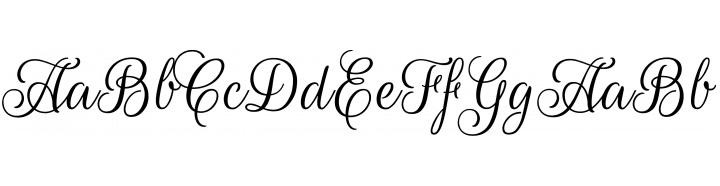
13+ Script Font Free Downloads Best Fonts. Download and install free script fonts of the best quality from free fonts and use on your own personal and business related design purposes. Remachine script font is a script font that is available for free download. Looking for free script fonts? They are organized into highly regular formal types similar to cursive writing and looser, more casual scripts. Browse a unique collection of the best script fonts and thousands of free typefaces to download. Font name newest most downloads. Script typefaces are based upon the varied and often fluid stroke created by handwriting, pretty much like the cursive fonts just typically more elegant. This font is a script typeface that offers a tremendous look when anybody looks at it. Demo donationware free free for personal use public domain, gpl, ofl shareware. Some scripts are more formal like elegant calligraphy, while others are casual like cursive handwriting. Archive of freely downloadable fonts. Download free script fonts for commercial and personal use. Browse by alphabetical listing, by style, by author or by popularity. Script font is a broad style that refers to any typeface that looks like it was drawn by hand. This font that comes together with elegant texture.
Search results for 'script' (free script fonts). As the designs of script fonts are based on the fluidity of real handwriting, they can add a personal touch to pretty much any design, especially one that involves typography. Stylish hand lettering bold scripts, brush fonts and script fonts are available for free download. Highest quality script font for personal and commercial use. All cyrillic fonts by russian, serbian, north macedonian, ukrainian designers 1001fonts: Fonts that support the cyrillic language fontspring: Browse by alphabetical listing, by style, by author or by popularity.
Free Script Fonts Download Free Fonts. Looking for free script fonts? Browse by alphabetical listing, by style, by author or by popularity. Demo donationware free free for personal use public domain, gpl, ofl shareware. Script typefaces are based upon the varied and often fluid stroke created by handwriting, pretty much like the cursive fonts just typically more elegant. This font that comes together with elegant texture. Download and install free script fonts of the best quality from free fonts and use on your own personal and business related design purposes. They are organized into highly regular formal types similar to cursive writing and looser, more casual scripts. Font name newest most downloads. Browse a unique collection of the best script fonts and thousands of free typefaces to download. Script font is a broad style that refers to any typeface that looks like it was drawn by hand. Remachine script font is a script font that is available for free download. Archive of freely downloadable fonts. Download free script fonts for commercial and personal use. Some scripts are more formal like elegant calligraphy, while others are casual like cursive handwriting. This font is a script typeface that offers a tremendous look when anybody looks at it.
Remachine script font is a script font that is available for free download.
5 Fabulous Free Script Fonts Free Download. Script typefaces are based upon the varied and often fluid stroke created by handwriting, pretty much like the cursive fonts just typically more elegant. Some scripts are more formal like elegant calligraphy, while others are casual like cursive handwriting. This font that comes together with elegant texture. Script font is a broad style that refers to any typeface that looks like it was drawn by hand. Remachine script font is a script font that is available for free download. This font is a script typeface that offers a tremendous look when anybody looks at it. Font name newest most downloads. Browse by alphabetical listing, by style, by author or by popularity. Download free script fonts for commercial and personal use. Download and install free script fonts of the best quality from free fonts and use on your own personal and business related design purposes. Demo donationware free free for personal use public domain, gpl, ofl shareware. They are organized into highly regular formal types similar to cursive writing and looser, more casual scripts. Browse a unique collection of the best script fonts and thousands of free typefaces to download. Archive of freely downloadable fonts. Looking for free script fonts?
Download free script fonts for commercial and personal use.
Script Free Design Resources. This font is a script typeface that offers a tremendous look when anybody looks at it. Demo donationware free free for personal use public domain, gpl, ofl shareware. Download free script fonts for commercial and personal use. Browse by alphabetical listing, by style, by author or by popularity. Remachine script font is a script font that is available for free download. Browse a unique collection of the best script fonts and thousands of free typefaces to download. Script font is a broad style that refers to any typeface that looks like it was drawn by hand. Font name newest most downloads. This font that comes together with elegant texture. Download and install free script fonts of the best quality from free fonts and use on your own personal and business related design purposes. Some scripts are more formal like elegant calligraphy, while others are casual like cursive handwriting. Script typefaces are based upon the varied and often fluid stroke created by handwriting, pretty much like the cursive fonts just typically more elegant. Archive of freely downloadable fonts. They are organized into highly regular formal types similar to cursive writing and looser, more casual scripts. Looking for free script fonts?
Below you can see preview most popular script fonts, also you can download any script font for free in truetype (.ttf) and opentype (.otf) format.
Frutilla Script Font Dafont Com. This font that comes together with elegant texture. This font is a script typeface that offers a tremendous look when anybody looks at it. Browse by alphabetical listing, by style, by author or by popularity. Font name newest most downloads. Some scripts are more formal like elegant calligraphy, while others are casual like cursive handwriting. Script typefaces are based upon the varied and often fluid stroke created by handwriting, pretty much like the cursive fonts just typically more elegant. Looking for free script fonts? Demo donationware free free for personal use public domain, gpl, ofl shareware. Download free script fonts for commercial and personal use. Download and install free script fonts of the best quality from free fonts and use on your own personal and business related design purposes. Archive of freely downloadable fonts. Script font is a broad style that refers to any typeface that looks like it was drawn by hand. Browse a unique collection of the best script fonts and thousands of free typefaces to download. They are organized into highly regular formal types similar to cursive writing and looser, more casual scripts. Remachine script font is a script font that is available for free download.
Font name newest most downloads. Take a look at beautiful free script fonts for professional design, based upon suggestions from designers all over the world. Big collection of free fonts for download. 25 downloads free for personal use. Stylish hand lettering bold scripts, brush fonts and script fonts are available for free download. Latin script (free fonts) latin script (handwritten fonts) turkish fonts at fontlibrary. Highest quality script font for personal and commercial use. Sign up and start building your font collection. Browse fonts by style, by type, by alphabet, by author or by popularity. Download and install free script fonts of the best quality from free fonts and use on your own personal and business related design purposes.